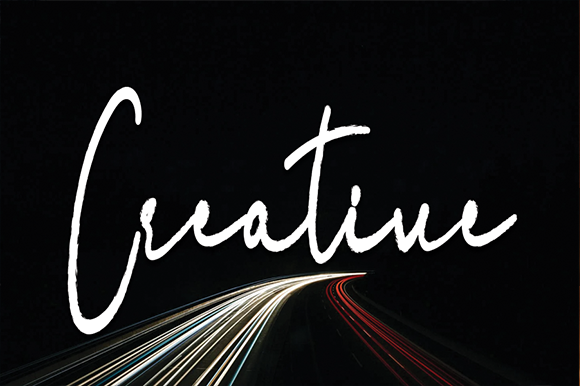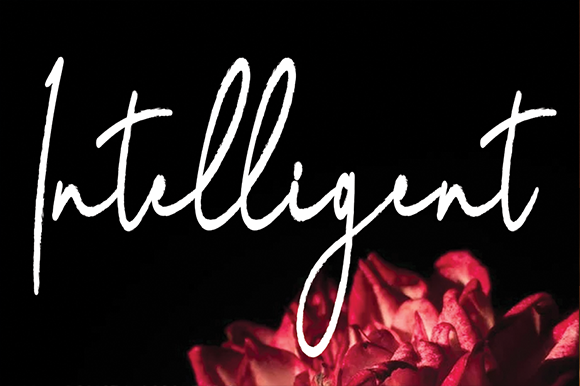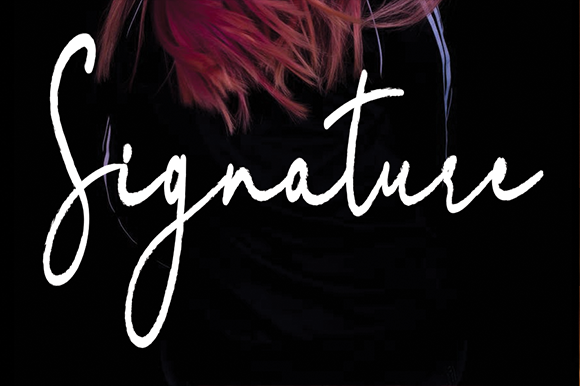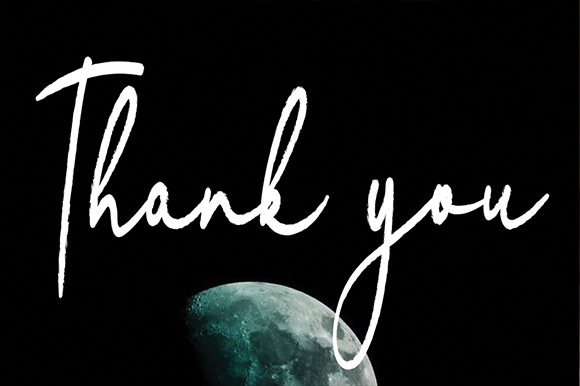
Vattarika Font
About Vattarika Font
Vattarika is a casual, fun handwritten font, created by using a brush pen. Clean and a little bit quirky, this font is the perfect fit for all of your logos, branding, social media, and crafty DIY projects.